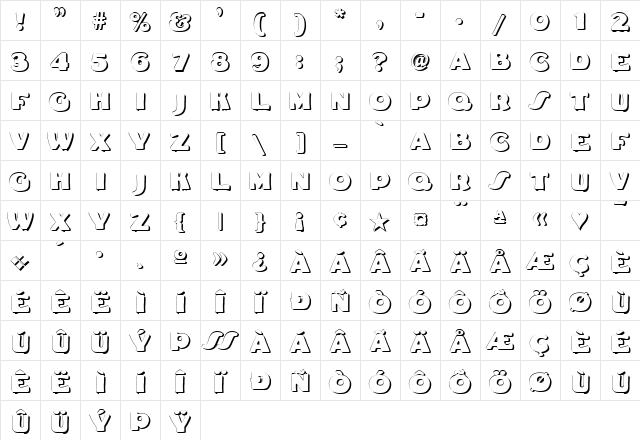
DS Fatty Shadow Regular
| Foundry | Typographer Mediengestaltung |
| Designer | Typographer Mediengestaltung |
Design Context for DS Fatty Shadow Typeface
DS Fatty Shadow is built around its visual character rather than neutral utility — its distinctive forms are designed to make an impression at display sizes.
Font Pairing: Pair with a clean neutral sans-serif for body copy to let DS Fatty Shadow's character lead without overwhelming the composition.
Pro Tip: Treat DS Fatty Shadow as the centrepiece of your typographic hierarchy. One strong heading set in a decorative face can carry an entire layout.